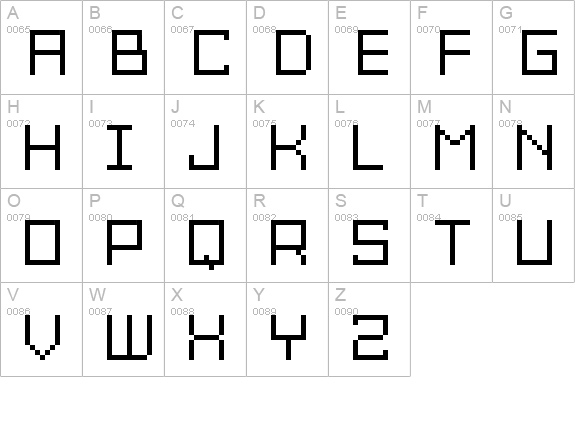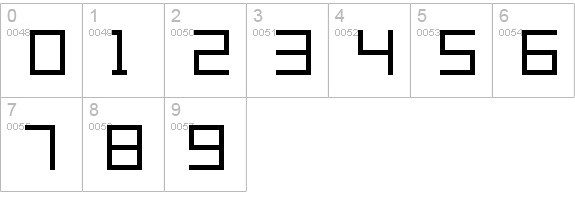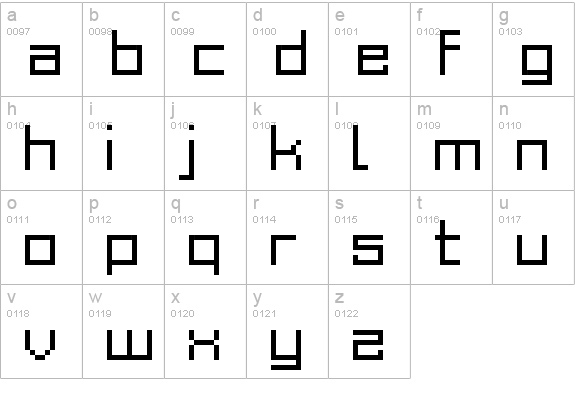
Grixel Acme 9 Regular is the standard, neutral variant in the Grixel typeface family \xE2\x80\x94 well suited to general body text, paragraphs, and standard typographic work.
Grixel Acme 9 Regular font is a versatile and modern typeface that is sure to make your designs stand out. Its clean lines and classic aesthetic make it ideal for a wide range of projects, from branding to editorial design. The font's sleek and professional look will elevate any design it is used in, giving your work a polished and sophisticated appearance. One of the best things about Grixel Acme 9 Regular font is that it is completely free to download. You can easily access this high-quality font at FontsMarket.com, where you can download it with just a few clicks. Whether you are a professional designer or a hobbyist looking to enhance your projects, this font is a fantastic choice that won't cost you a thing. With its timeless design and easy accessibility, Grixel Acme 9 Regular font is the perfect addition to your font collection. Download it today and start creating stunning designs that are sure to impress.